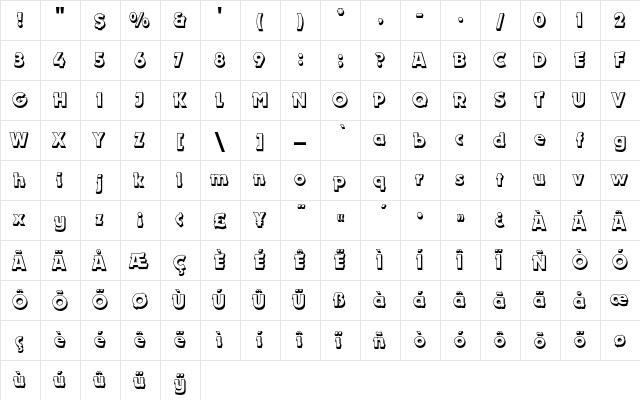
DynamoEF BoldShadow
Design Context for DynamoEF Typeface
DynamoEF is built around its visual character rather than neutral utility — its distinctive forms are designed to make an impression at display sizes. The heavy weight commands attention and anchors typographic hierarchies.
Font Pairing: Pair with a clean neutral sans-serif for body copy to let DynamoEF's character lead without overwhelming the composition.
Pro Tip: Treat DynamoEF as the centrepiece of your typographic hierarchy. One strong heading set in a decorative face can carry an entire layout.